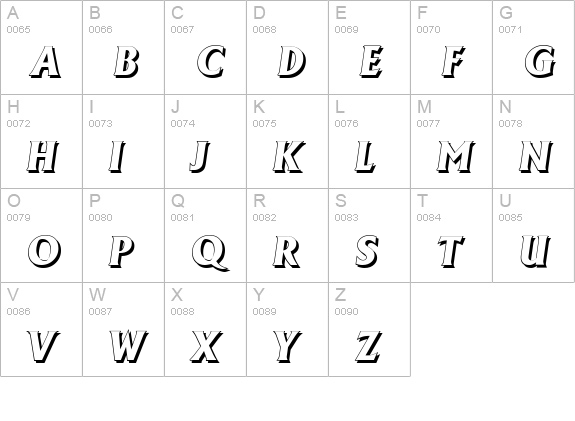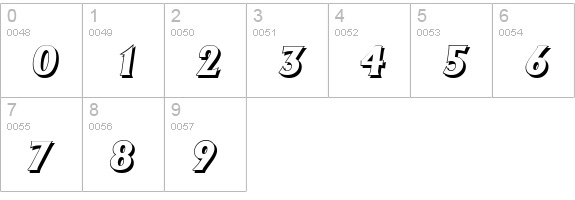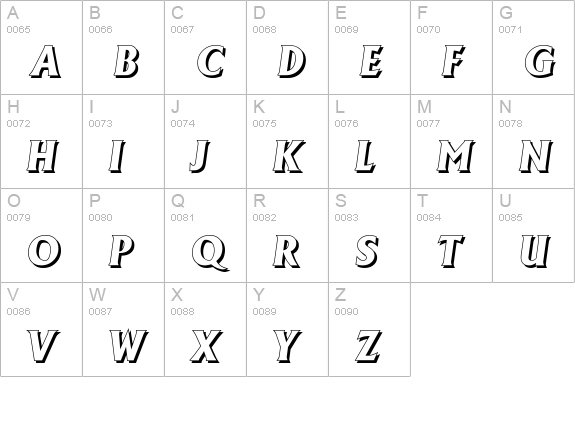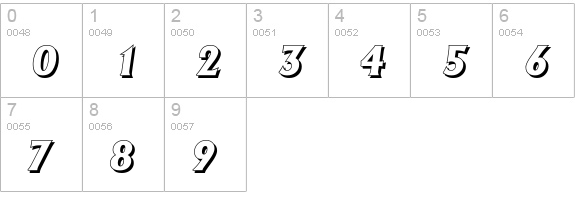
AdelonShadow-Xbold-Italic is a distinctive, italic variant in the AdelonShadow typeface family \xE2\x80\x94 well suited to design and typography projects.
AdelonShadow-Xbold-Italic is a striking and modern font that exudes elegance and sophistication. Its bold and italic design provides a unique touch to any project, making it stand out from the crowd. With its sleek lines and sharp angles, this font is perfect for creating eye-catching headlines, logos, and branding materials. What makes AdelonShadow-Xbold-Italic even more appealing is that it is available for free download at FontsMarket.com. This means that you can easily access this high-quality font without having to spend a penny. Whether you are a graphic designer, a marketer, or a creative enthusiast, AdelonShadow-Xbold-Italic is a versatile choice that will elevate your designs and leave a lasting impression. Download it today and unleash your creativity with this stunning typeface.